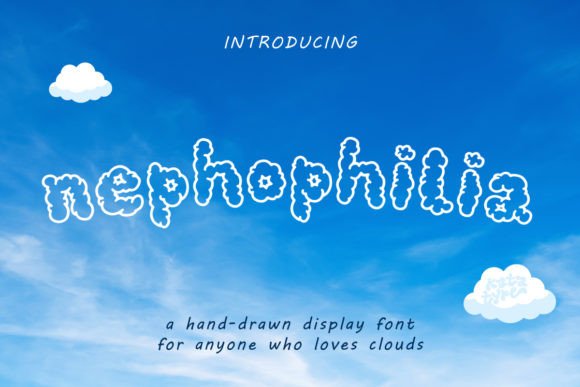
Indulge in the whimsical allure of Nephophilia, a captivating hand-drawn display font that evokes the ethereal beauty of clouds. This enchanting typeface is an ode to your inner dreamer, inviting you to embrace the boundless possibilities of creative expression.
With Nephophilia, transform your artistic visions into reality. Let your words dance gracefully across the page, imbuing them with a touch of delicate charm and unwavering style. Whether you're crafting heartfelt quotes, eye-catching headings, or memorable logos, this font empowers you to make a lasting impression.
Unleash your creativity and elevate your designs to new heights. Nephophilia is the perfect companion for branding, merchandise, and websites, adding an instant touch of whimsical sophistication to any project. Embrace the magic of clouds and let your imagination soar with this enchanting font.